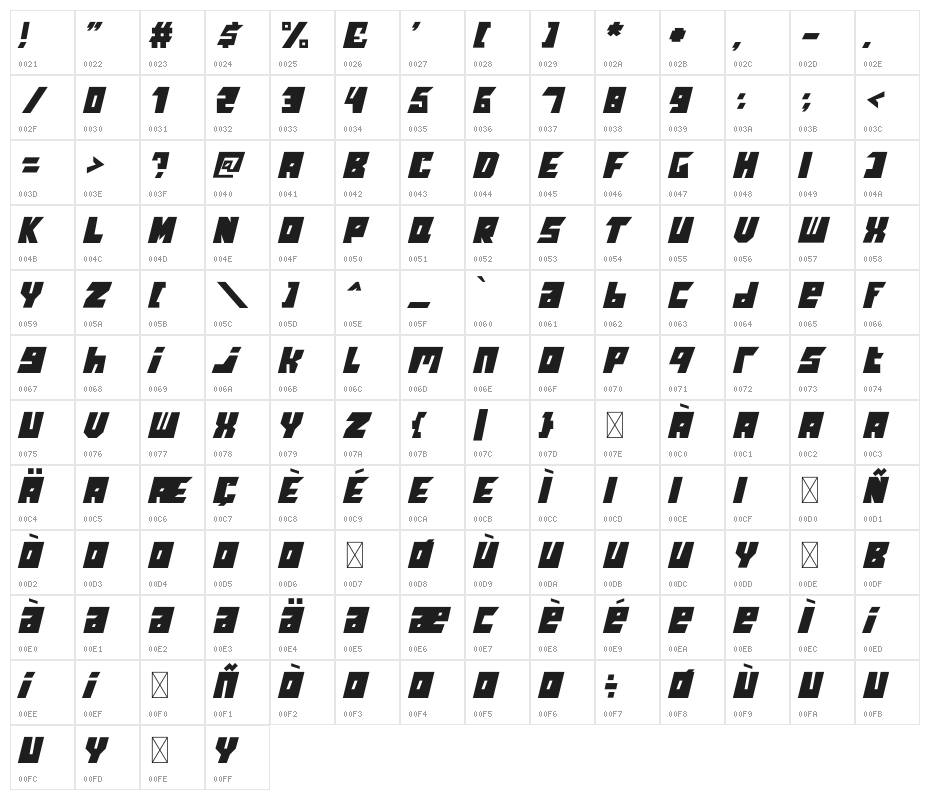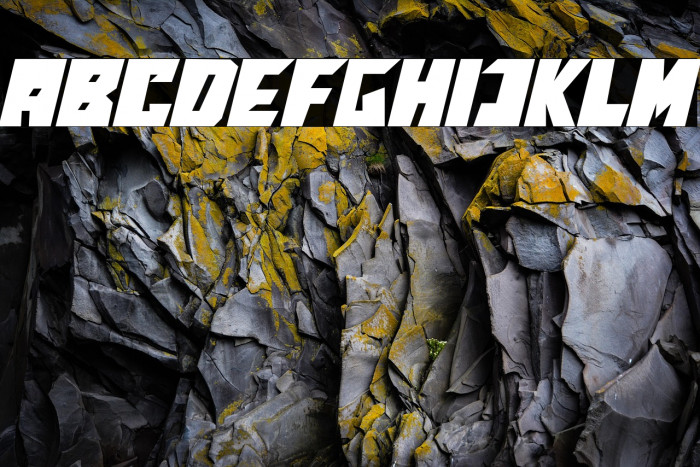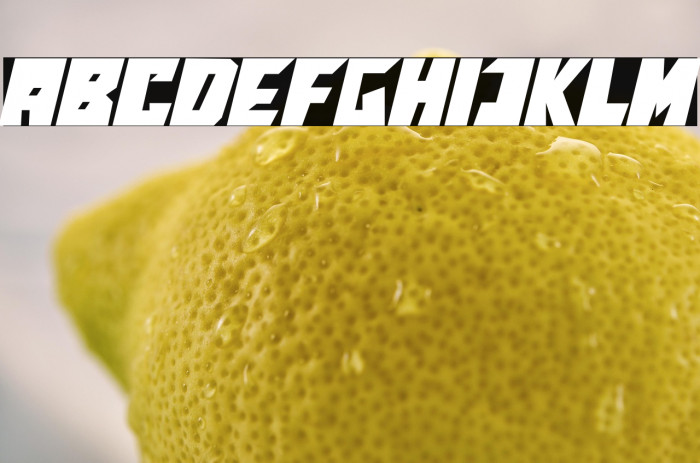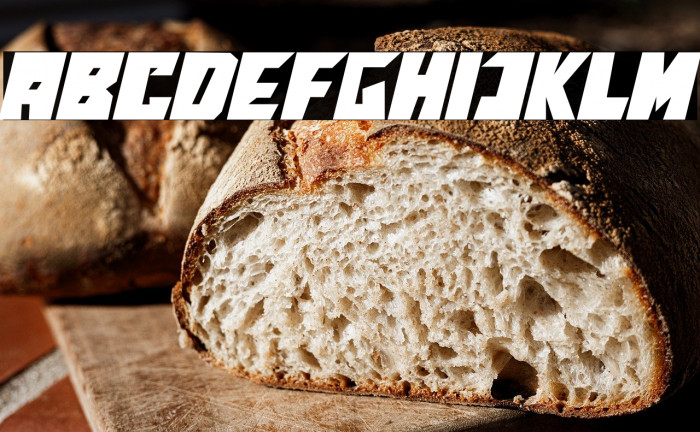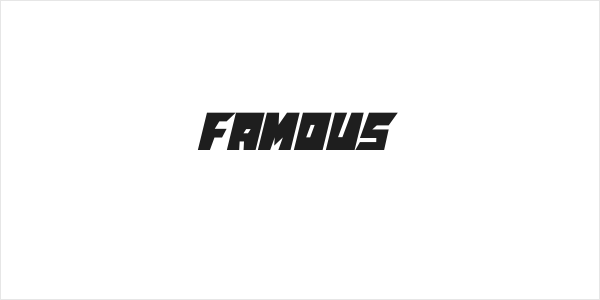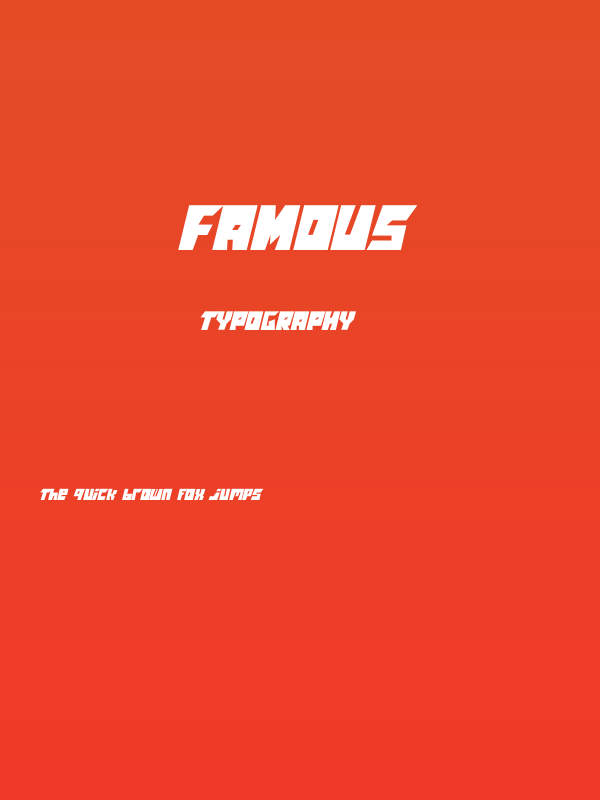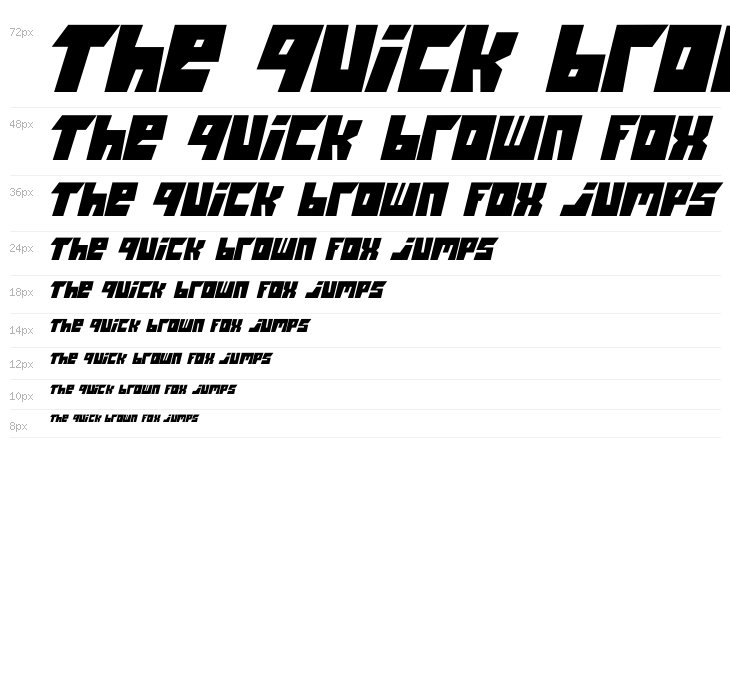
FAMOUS Font
FAMOUS Description
This font features a bold and dynamic design with sharp, angular edges and a strong geometric influence. The uppercase and lowercase letters maintain a consistent style, characterized by their slanted, blocky appearance that conveys a sense of movement and energy. The numbers and special characters follow the same aesthetic, ensuring uniformity across all elements. The font's thick strokes and unique shapes make it highly distinctive and eye-catching, suitable for projects that require a modern and edgy look.
| Proposed Projects | Ideal for sports branding, action movie posters, video game titles, and dynamic logo designs. |